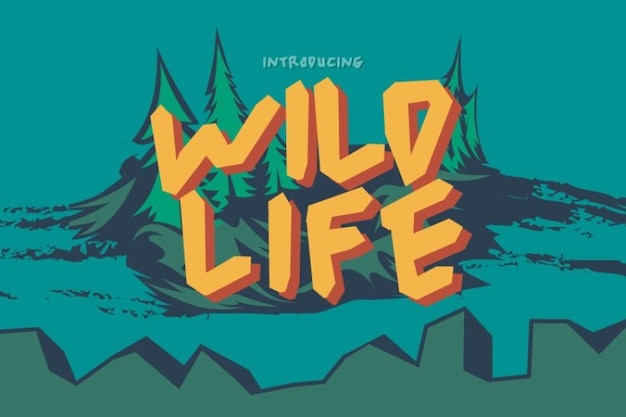
Wild Life Font
A font that's as untamed as the great outdoors. Its letters exude a wild, savage energy, like the untamed spirit of the wilderness. Perfect for those who embrace the ruggedness of camping and the raw beauty of nature. Each character feels like a brushstroke from the forest, embodying the essence of adventure. Let your words roam free with "Wild Life" and capture the thrill of the untamed world in every letter.